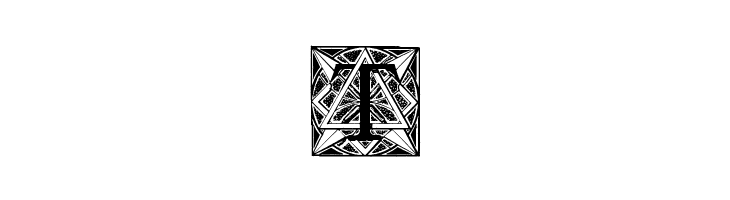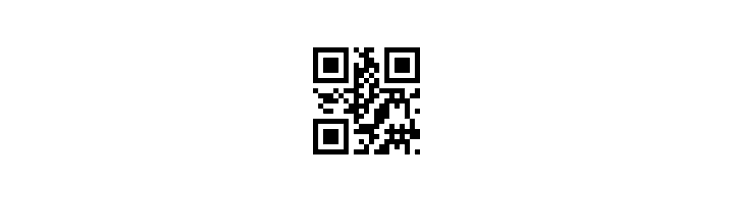
( David Flor )
A geometric, runic-inspired font with angular, cryptic characters.
( Daxad - Adrien Daxhelet - www.daxhelet.eu/ )
An intricate, decorative font with Masonic-inspired designs and bold, artistic letters.
( Imran Nasution - Bayo Suti XV - imrannasution1.blogspot.com )
A semaphore-inspired font using flag positions to represent characters.
( Paul Davis - www.davisanddavisdesign.co.uk )
An abstract, geometric font with a futuristic and artistic design.
( Rainkarnichi - Aydi Rainkarnichi - github.com/rainkarnichi )
A symbolic, QR code-inspired set for encoding alphanumeric data.
( Vladimir Nikolic - www.coroflot.com/vladimirnikolic )
Intricately detailed idol heads with elaborate headdresses in a decorative style.
( Woodcutter - woodcutter Manero - www.woodcutter.es )
A display font composed entirely of diverse trident symbols.
( Woodcutter - woodcutter Manero - www.woodcutter.es )
A pictorial, hand-drawn font inspired by prehistoric cave paintings.
( ADT )
A decorative dingbat font featuring a wide variety of arrow symbols.
( Character )
A collection of geometric shapes and symbols forming a modern, abstract design.